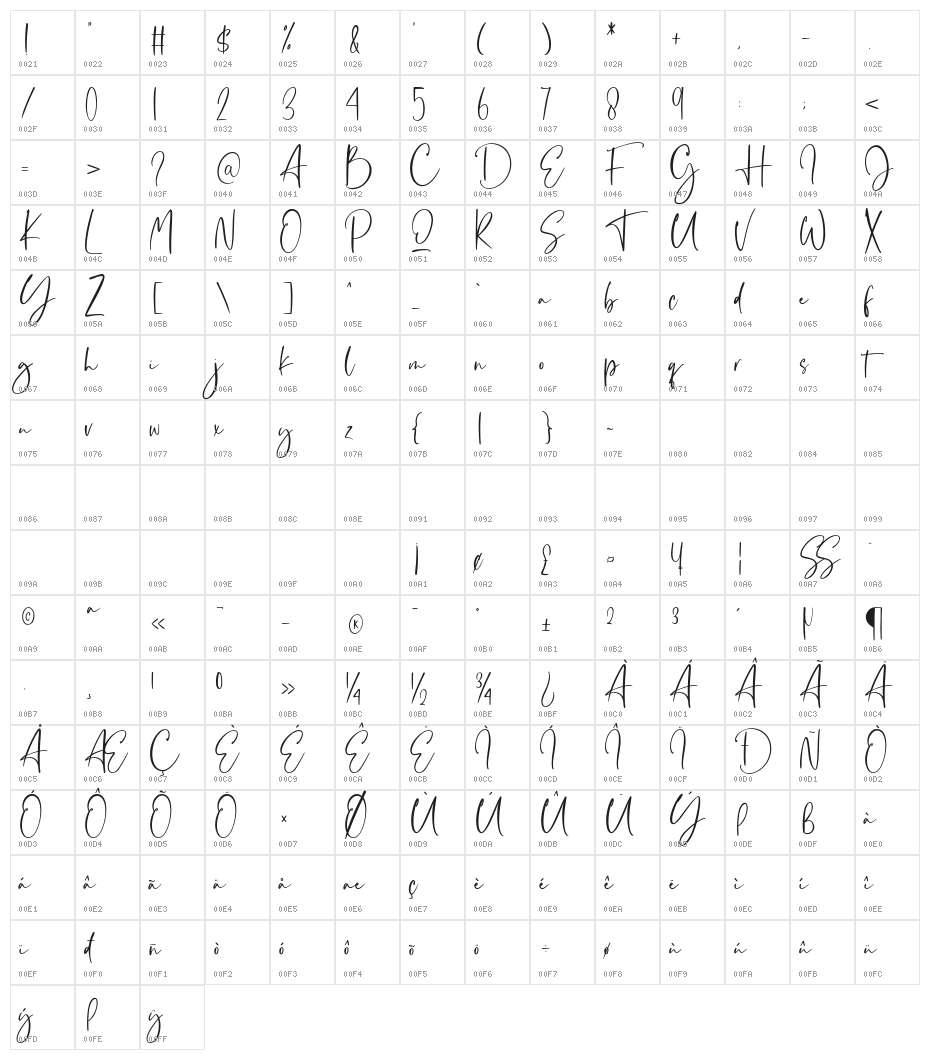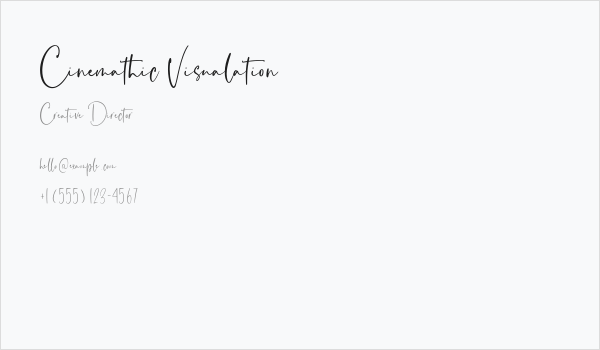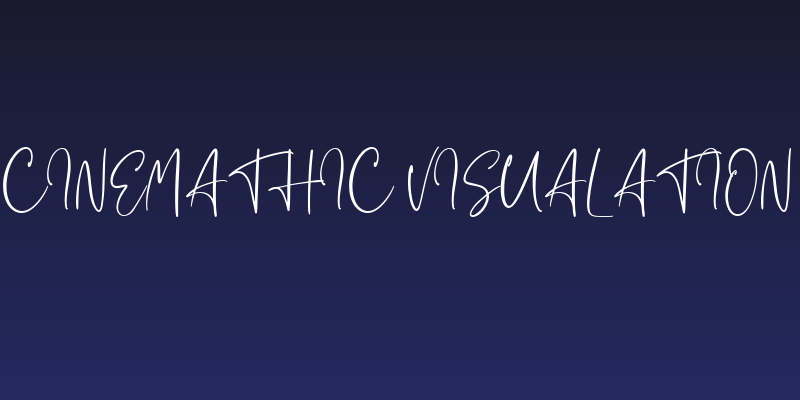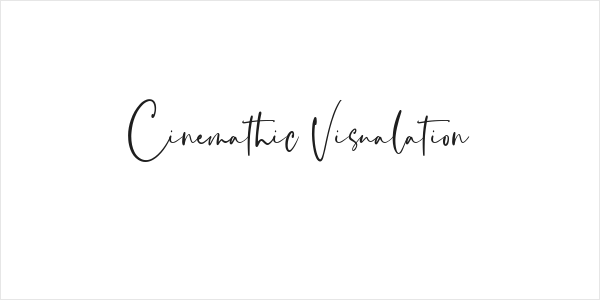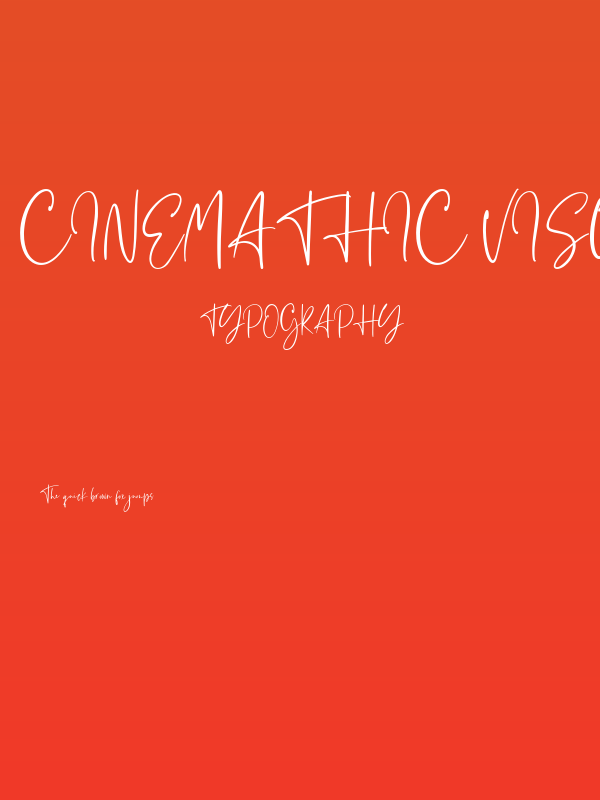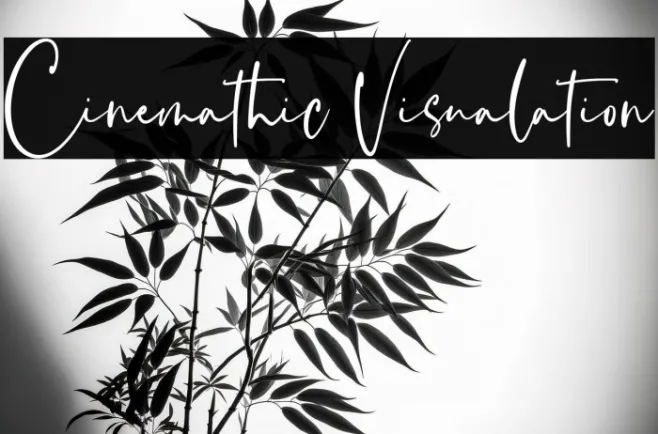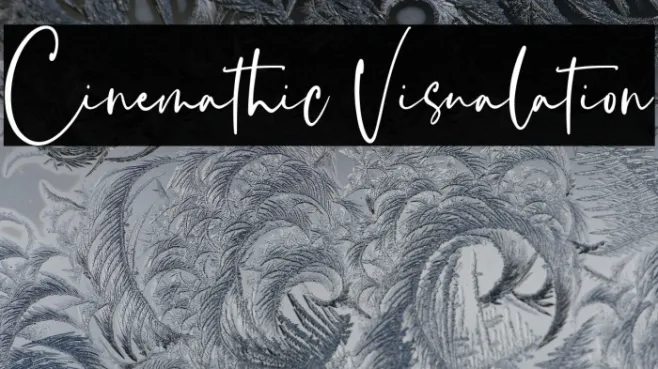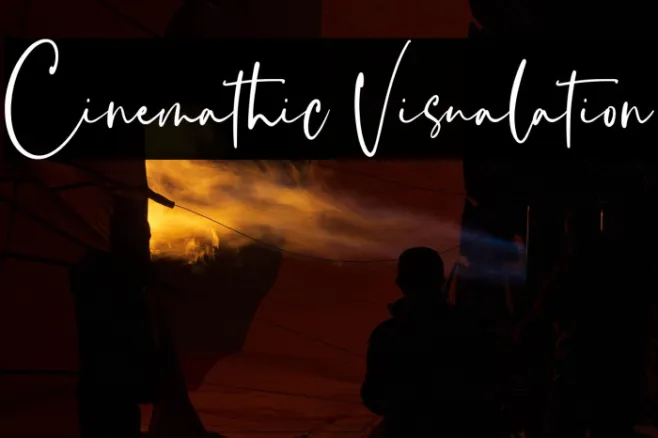
Cinemathic Visualation Font
Cinemathic Visualation Description
A playful and expressive handwritten font with a casual and artistic flair. The letters are fluid and slightly irregular, giving it a personal touch.
| Overall Style | Casual and artistic |
| Use Case | Logos, invitations, personal projects |
| Proposed Projects | Greeting cards, invitations, personal branding. |